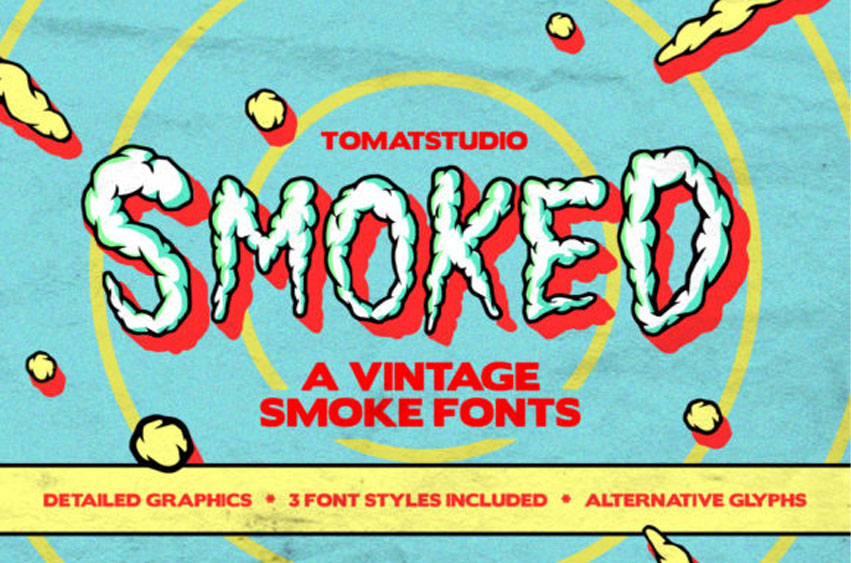
Vintage Smoked Font is a display font inspired by a vintage horror poster. It features cloud-style vintage fonts. In this package, you will get three font styles.
It’s fun and playful and would be perfect for your next DIY project, stickers, t-shirt design, branding, clothes, and so much more.